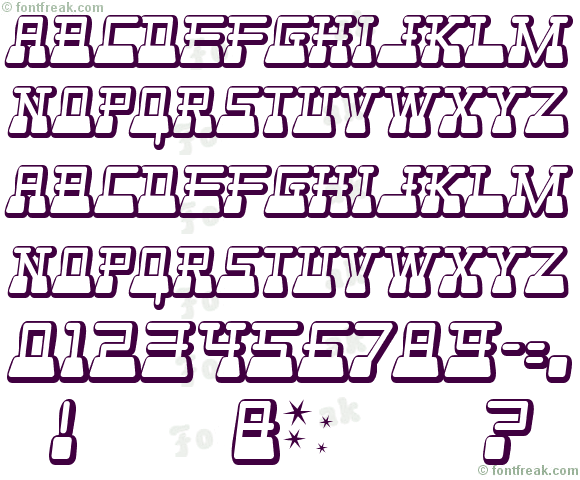
Webster World
About Webster World
The Webster World font by Ray Larabie is a captivating display typeface that stands out with its unique and bold character. Designed in 1997, this freeware font exudes a playful yet structured aesthetic, making it ideal for various creative applications. Its distinctive style falls under the display category, characterized by a combination of thick and thin strokes that create a striking visual impact. The font features rounded edges and a geometric form, enhancing its modern appeal while ensuring readability.
Visually, Webster World showcases a medium stroke weight with moderate contrast, striking a balance between boldness and clarity. The spacing between characters is thoughtfully considered, allowing for an easy flow of text, which is essential in design contexts. Additionally, the font incorporates subtle decorative elements that give it a unique personality without overwhelming the overall design, making it versatile for various uses.
This font is particularly well-suited for eye-catching applications such as movie posters, where its boldness can draw attention and convey a sense of excitement. It also works effectively for restaurant menus, providing a fun yet professional look that can entice diners. Additionally, Webster World is perfect for creative branding projects, promotional materials, and even social media graphics, appealing to graphic designers and content creators alike.
Author Ray Larabie